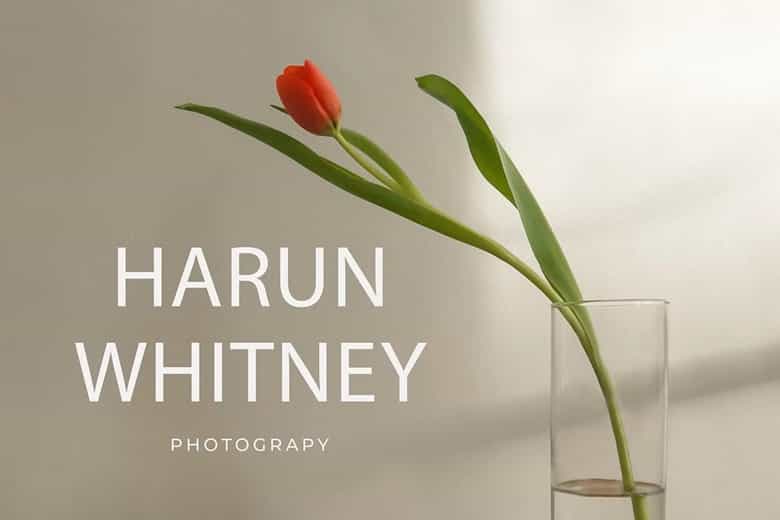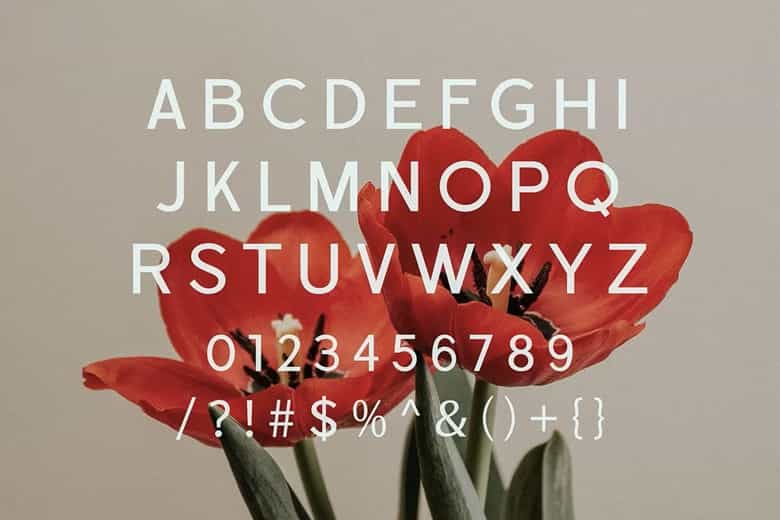
Cardio is a contemporary, sleek and minimalist sans serif typeface that appears clean. It is versatile in web design with a smooth functionality, brand look and feel, and advertising format. Its geometric accuracy and open design character contributes as a form of favorite font among the professionals.